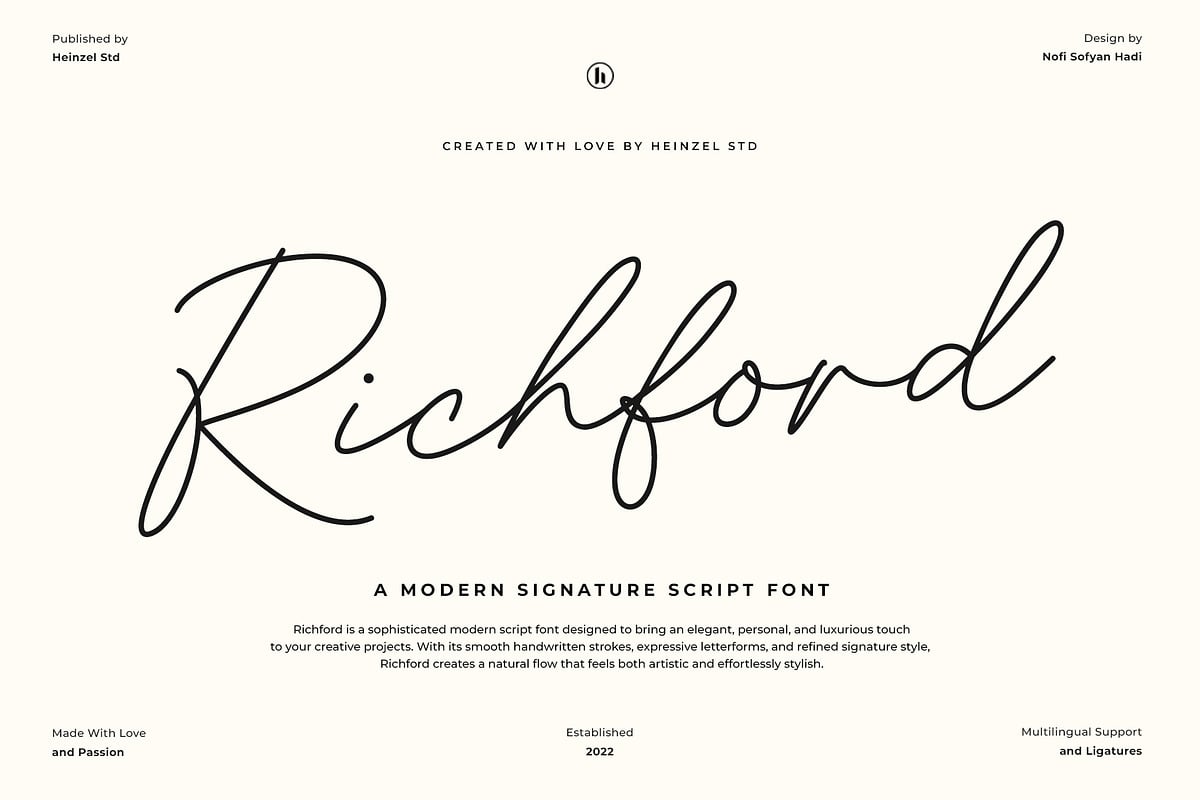
Richford Signature Script Font
Richford is a luxurious signature script typeface that brings handwritten elegance and personal flair to any creative project.
Crafted with smooth, flowing strokes and expressive letterforms, Richford captures the feel of an authentic hand-signed signature. Its refined, artistic style creates a natural rhythm on the page — effortlessly stylish and genuinely distinctive.
Richford is an ideal typeface for:
- Logos and brand identity
- Wedding invitations and stationery
- Social media graphics
- Fashion and apparel designs
- Packaging and product labels
- Photography branding and business cards
- Luxury and high-end branding projects
Its graceful script forms make it especially well-suited for designs that call for a personal, feminine, or premium aesthetic. Whether you're crafting an intimate wedding suite or building a sophisticated brand identity, Richford delivers that polished, handcrafted character every time.
The font includes multilingual support and beautiful ligatures, giving you greater flexibility to create unique, refined typography across a wide range of languages and design contexts.